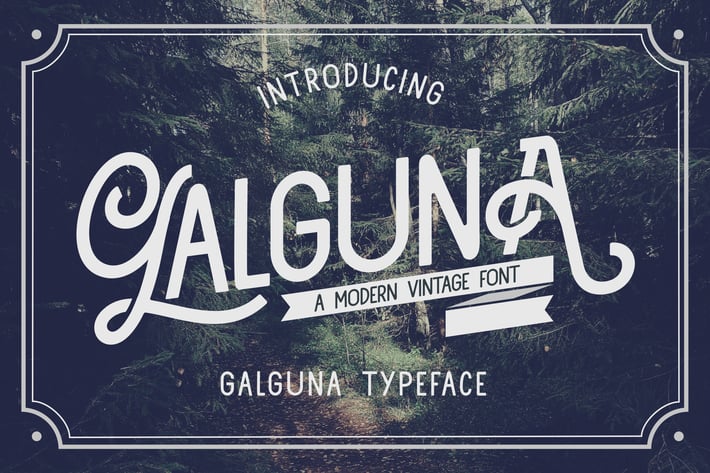
Galguna - Vintage Script Font
Galguna combines the senses of elegance, minimalism, and vintage to provide a script font that is so distinctive to the human eye – The font flawlessly uses a serif style of writing, which makes it so alluring to any audience viewing the font. It can be widely used by many individuals for their everyday desires; Whether you’re creating a business card, packaging, logo, or even a magazine. The Galguna will open up new opportunities for any intended use.